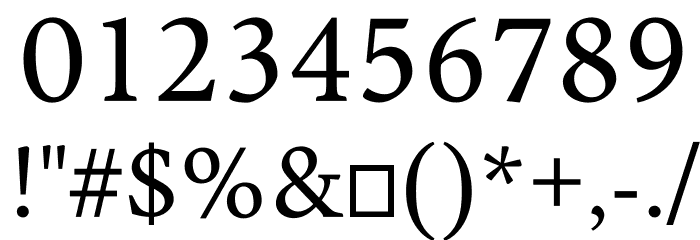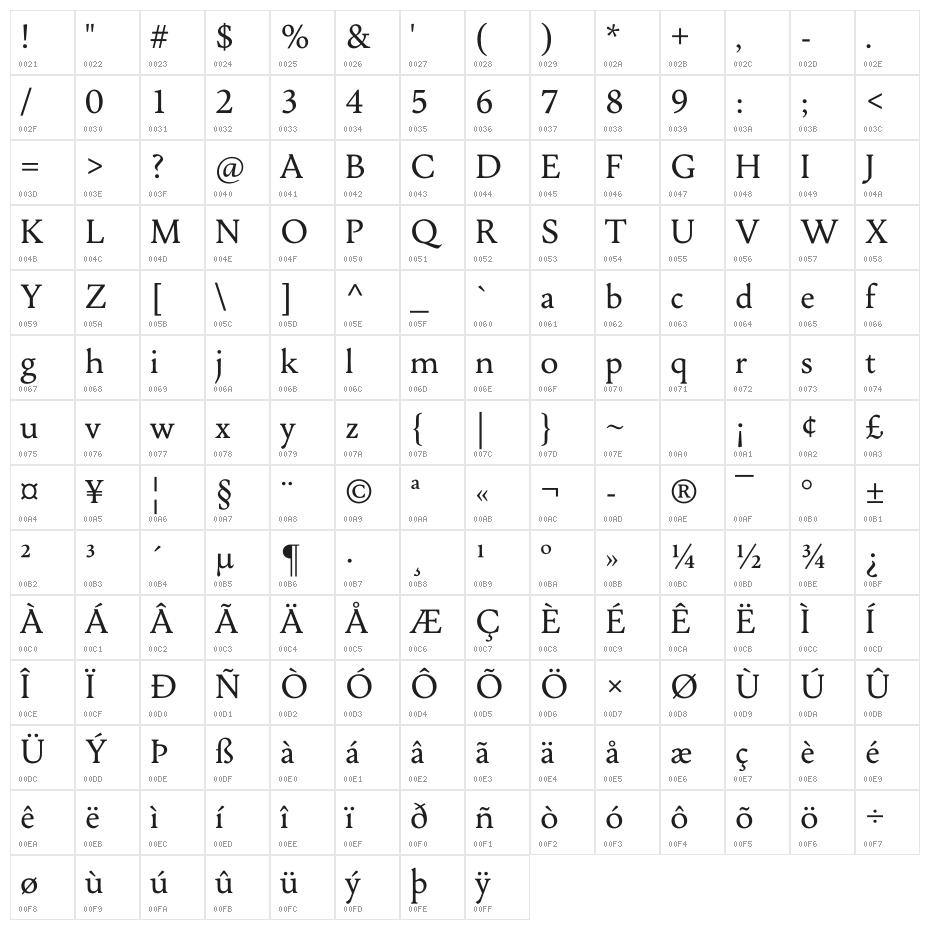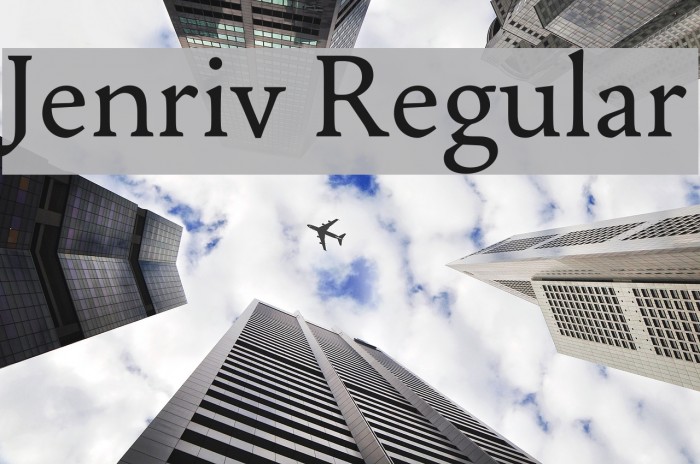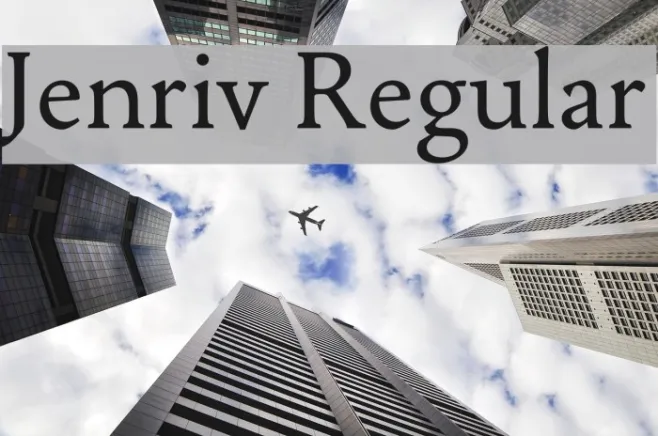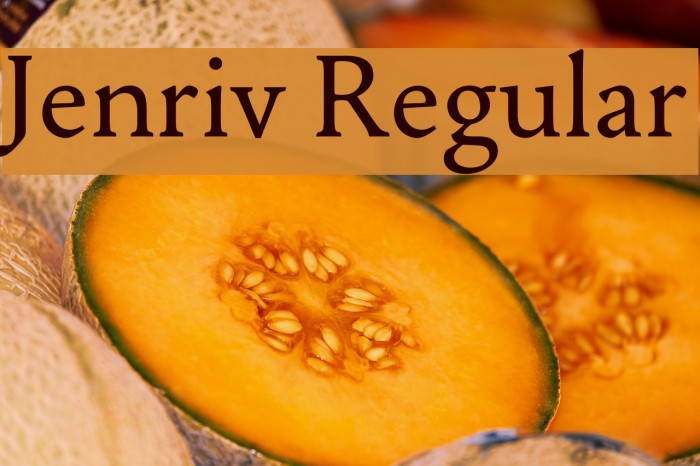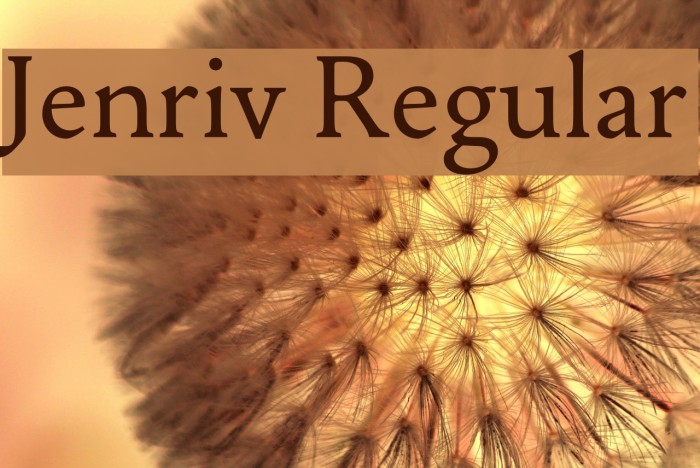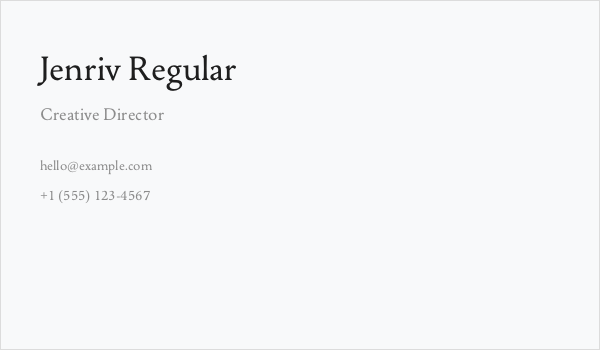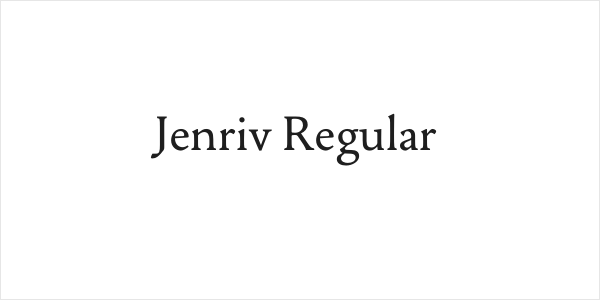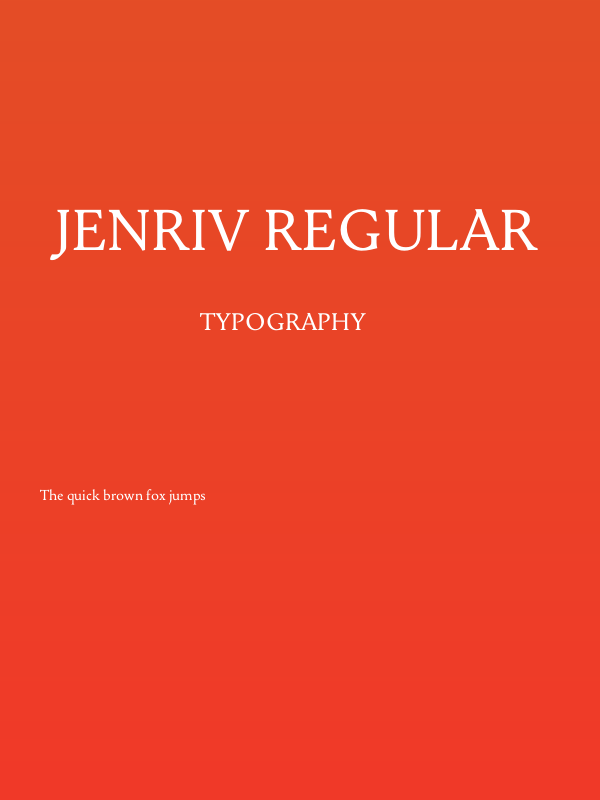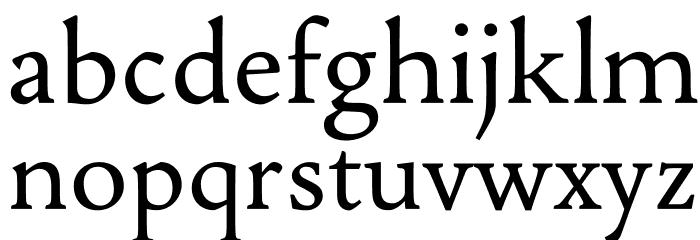
Jenriv Regular Font
Jenriv Regular Description
This typeface features a classic serif design with elegant, slightly curved serifs that add a touch of sophistication. The uppercase letters are bold and commanding, while the lowercase letters maintain a consistent style with a slightly more delicate appearance. The numerals are clear and easy to read, making them suitable for various applications. Special characters are well-defined, ensuring versatility in usage. The overall design is balanced, with moderate contrast between thick and thin strokes, giving it a timeless and professional look.
| Proposed Projects | Ideal for editorial design, book covers, formal invitations, and branding projects that require a touch of elegance and tradition. |